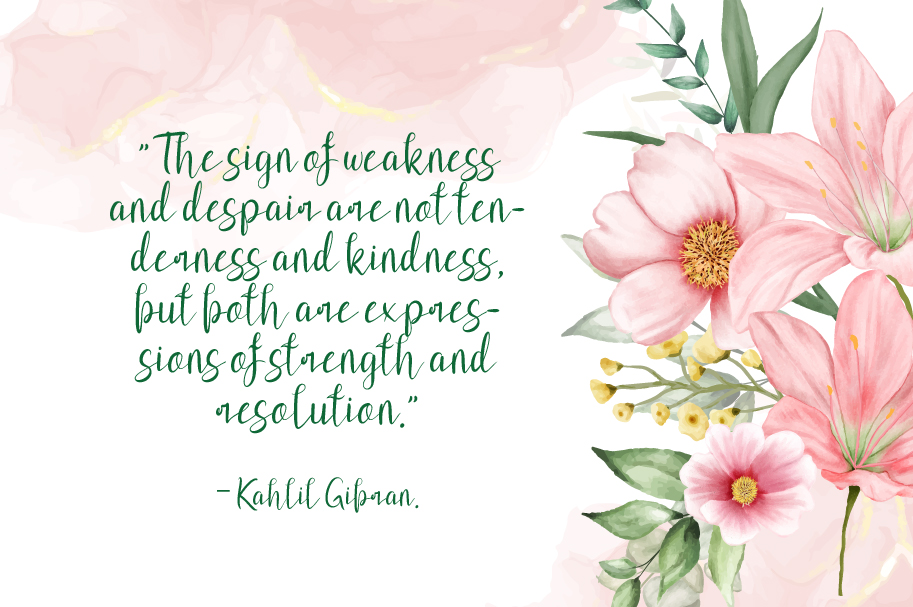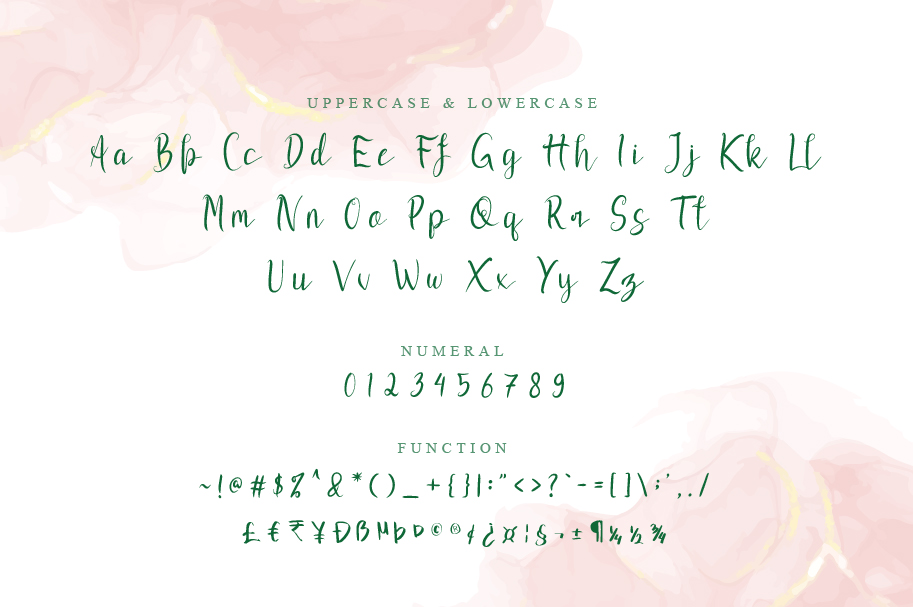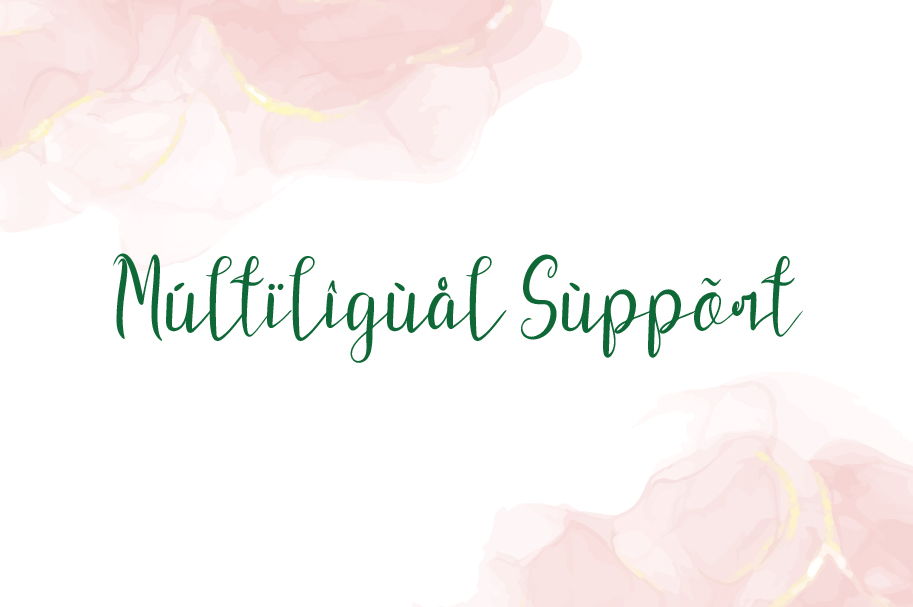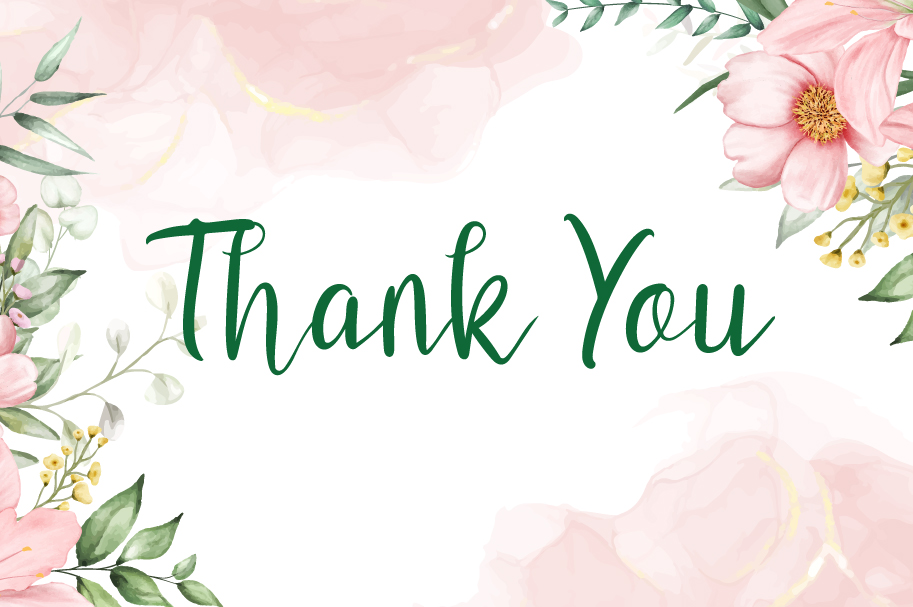
Masbu Font
Masbu Script Font
This is a lovely and timeless handwritten font. It is the best choice for creating eye catching logos, branding and quotes. Every letter has a unique and beautiful touch, which will make your design come alive!